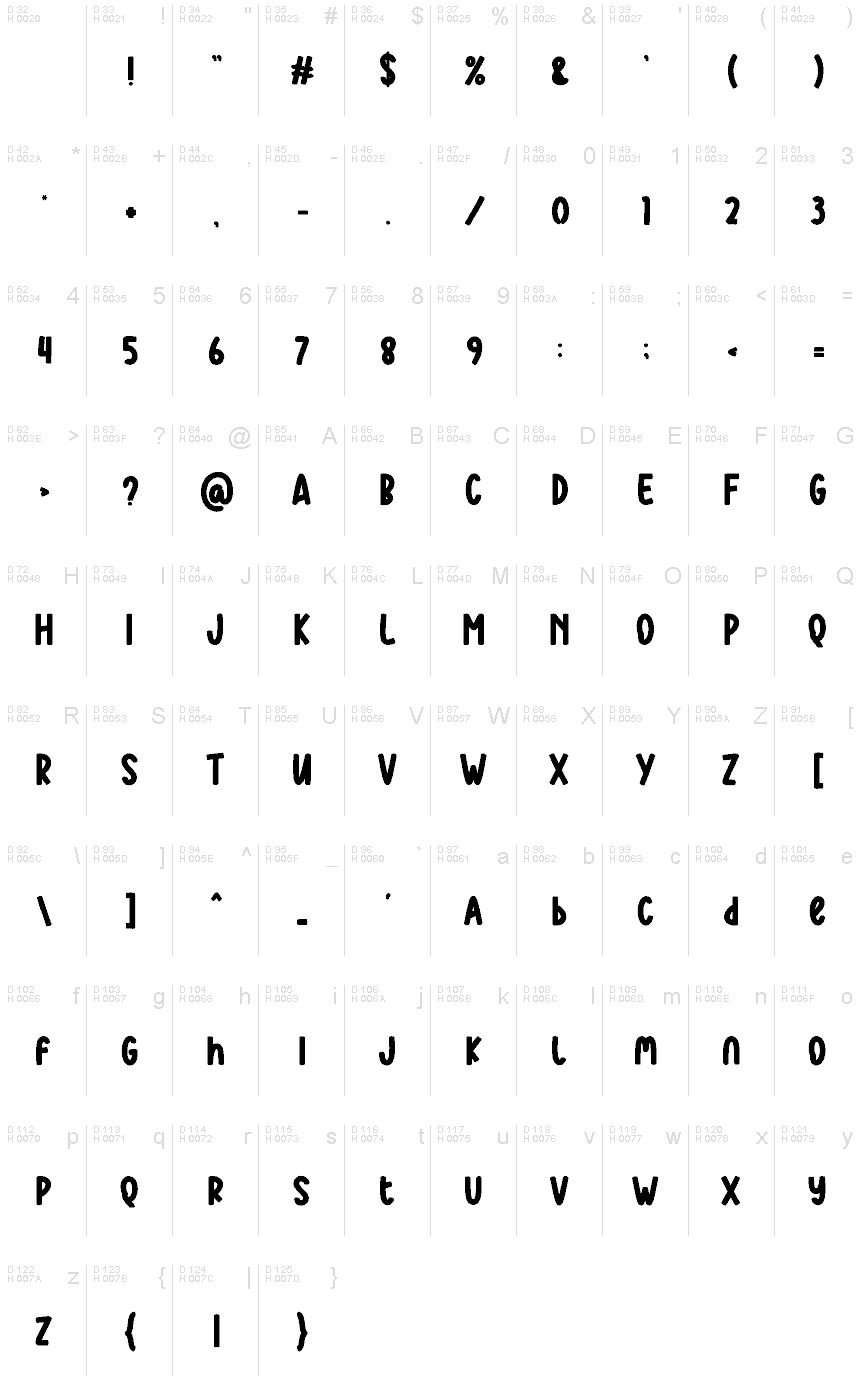
Official Day
Official Day font is a condensed display typeface designed by Scratchones with a cartoon and retro-inspired style. The quirky design with rounded forms gives a whimsical feel that can make your projects pop. Full of casual elegance, the set even manages to present itself as serious at times, being able to get the readers’ attention every step of the way.